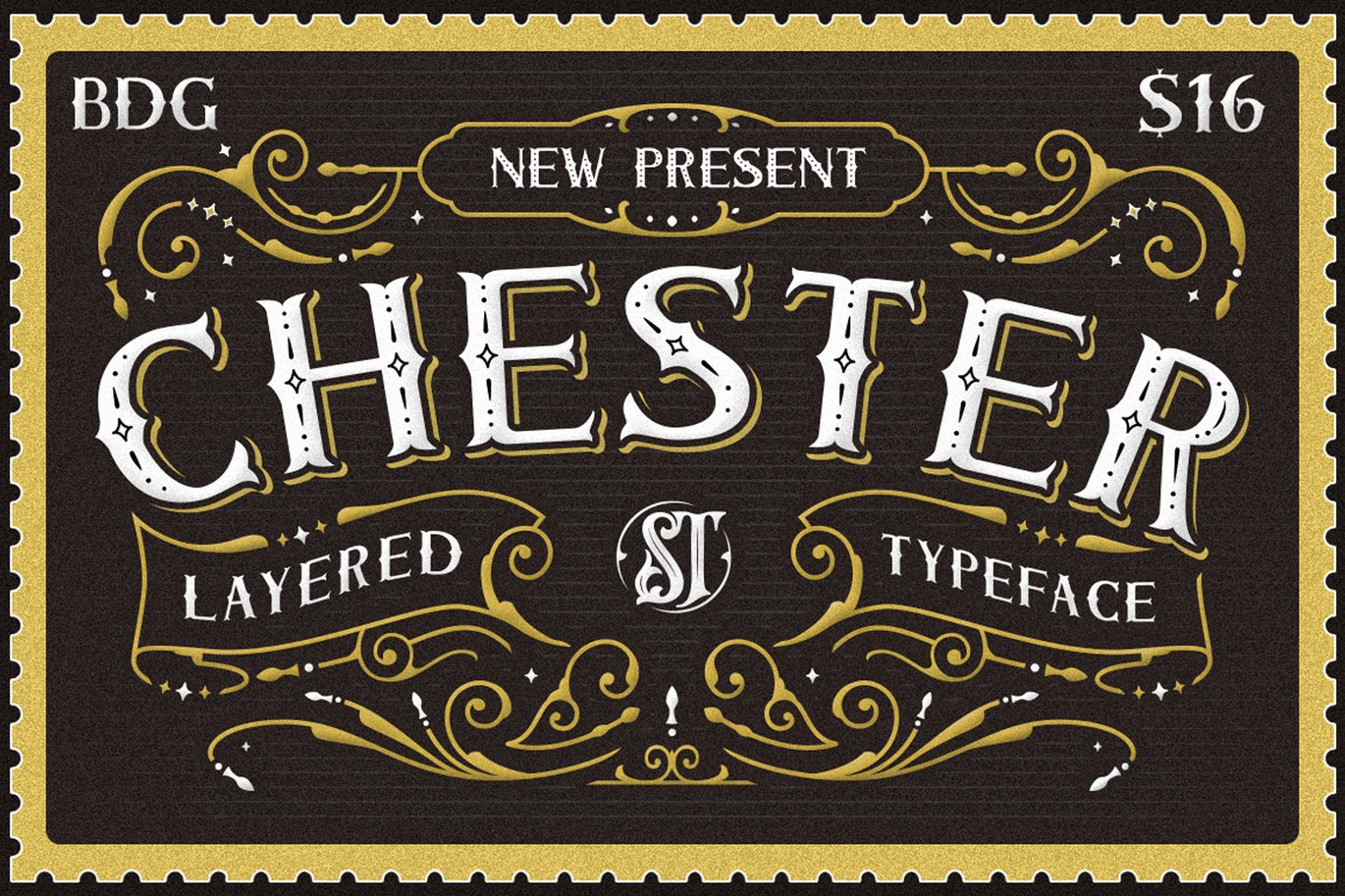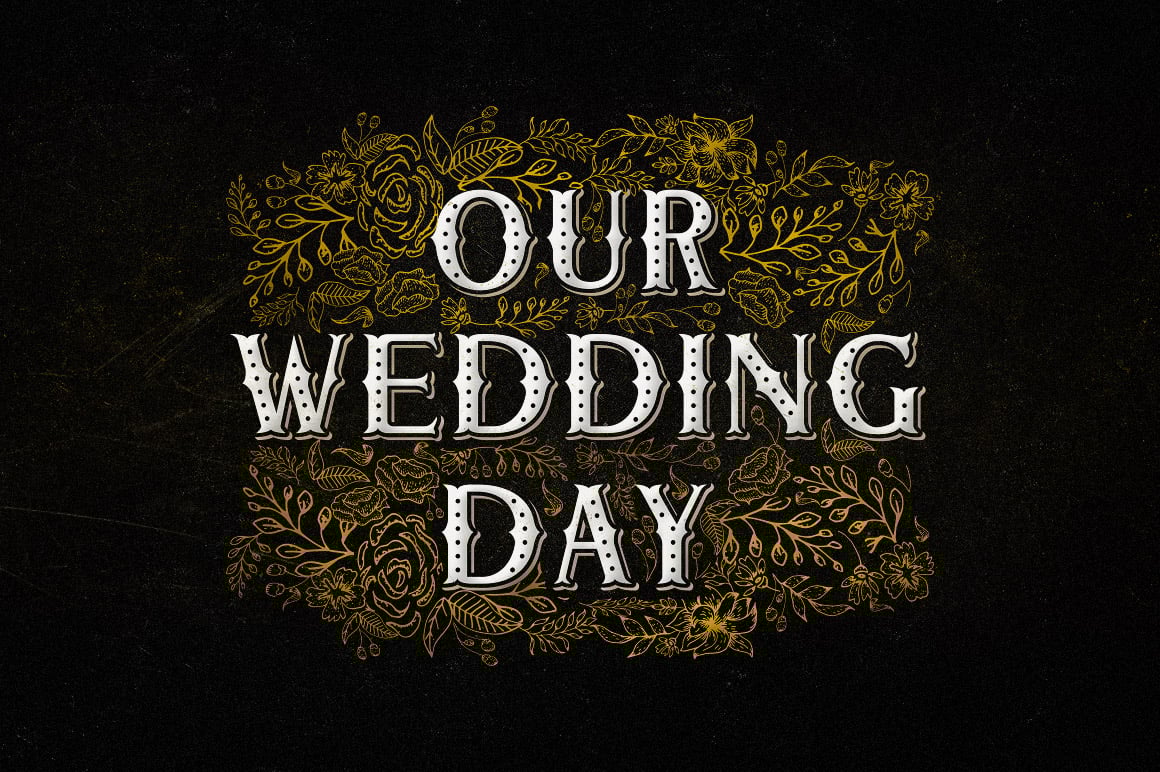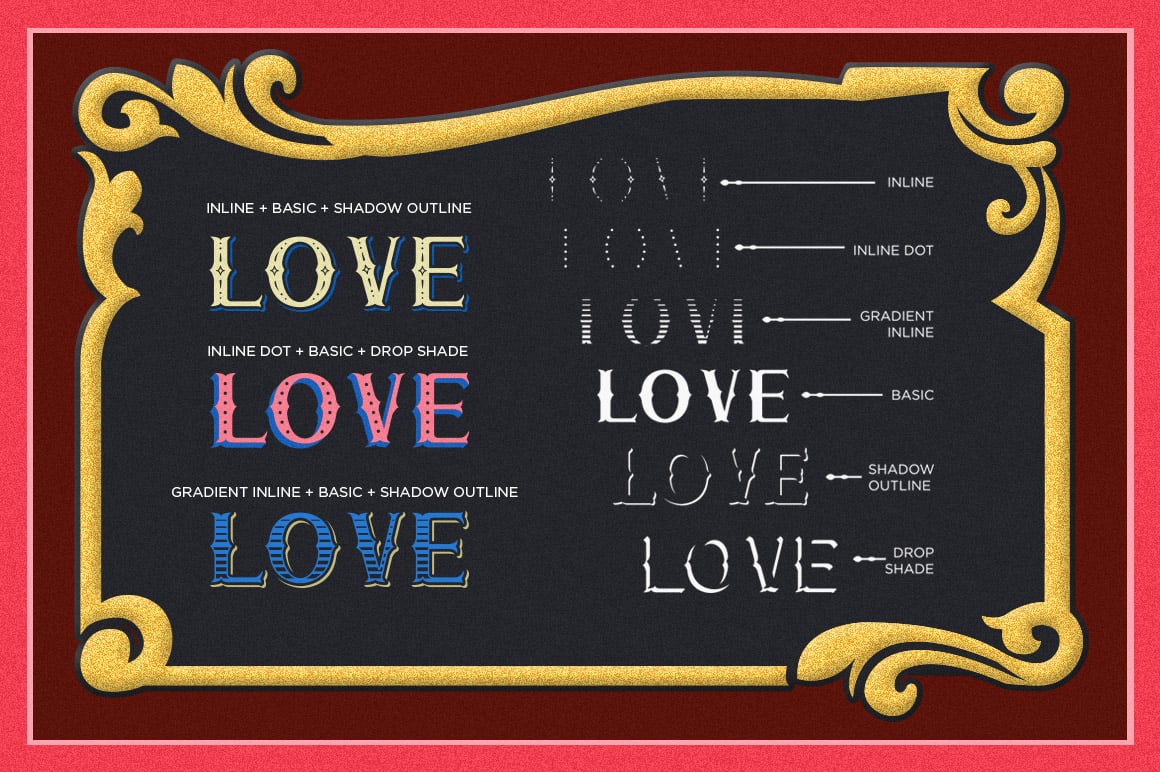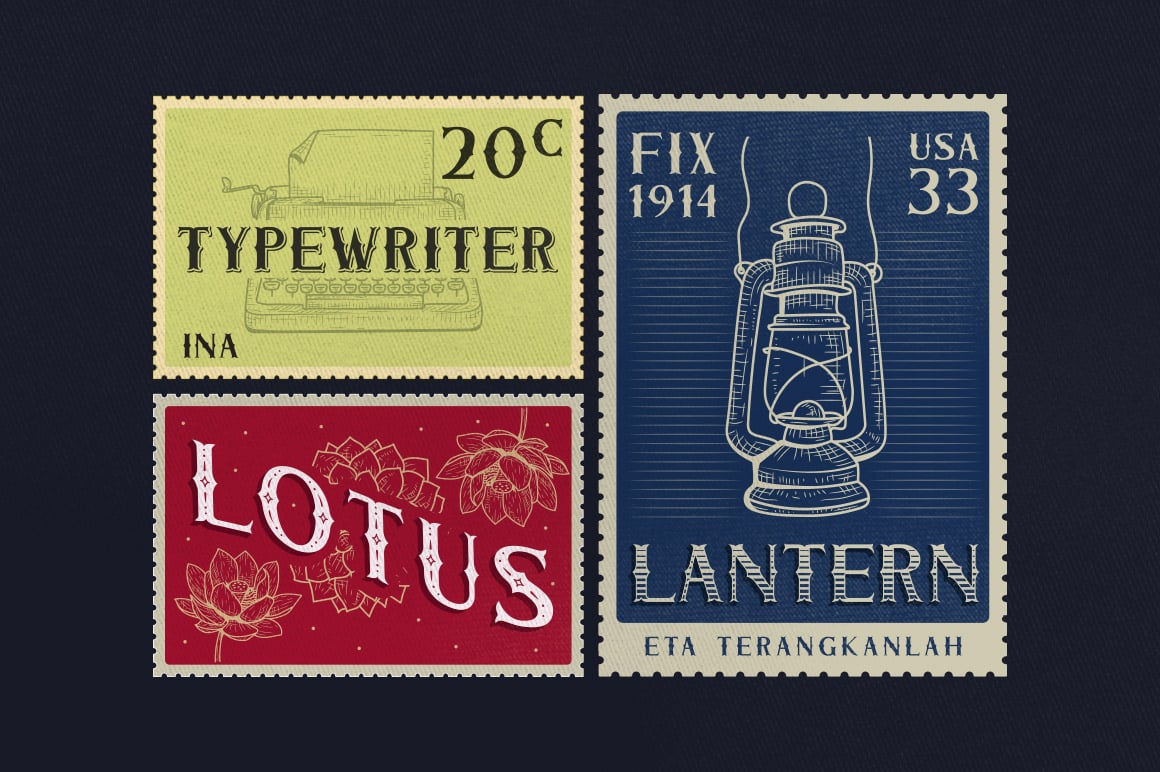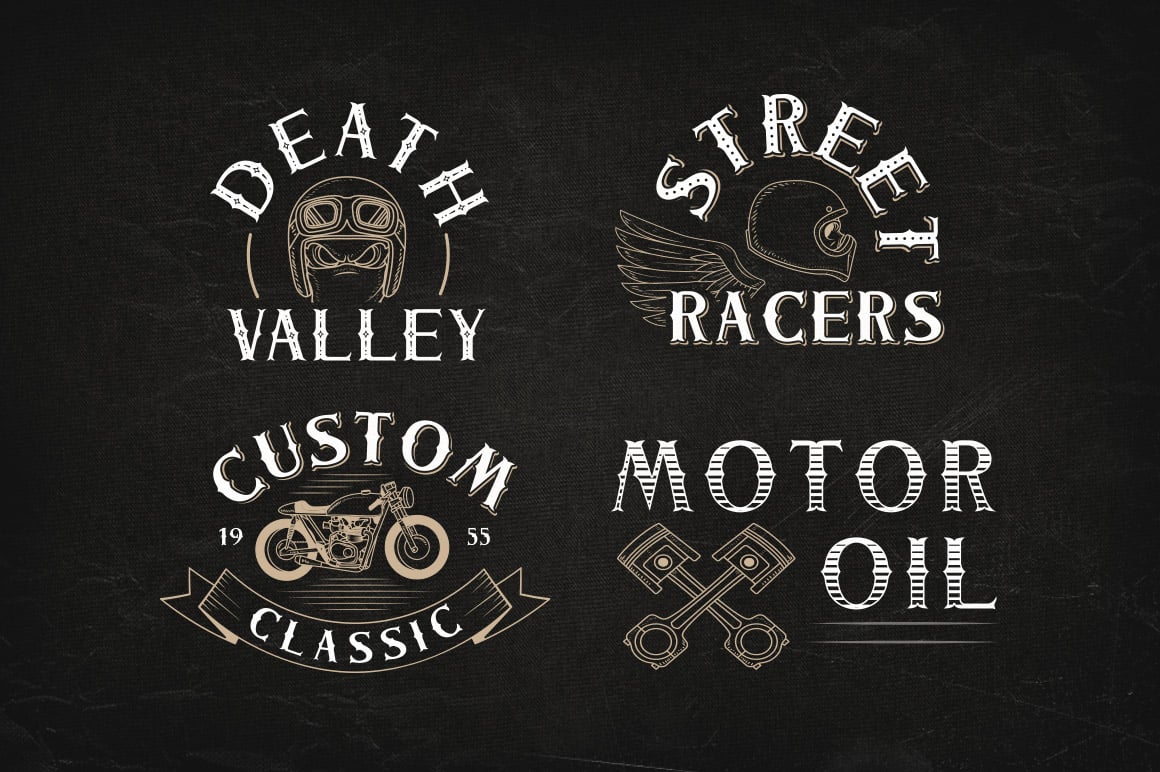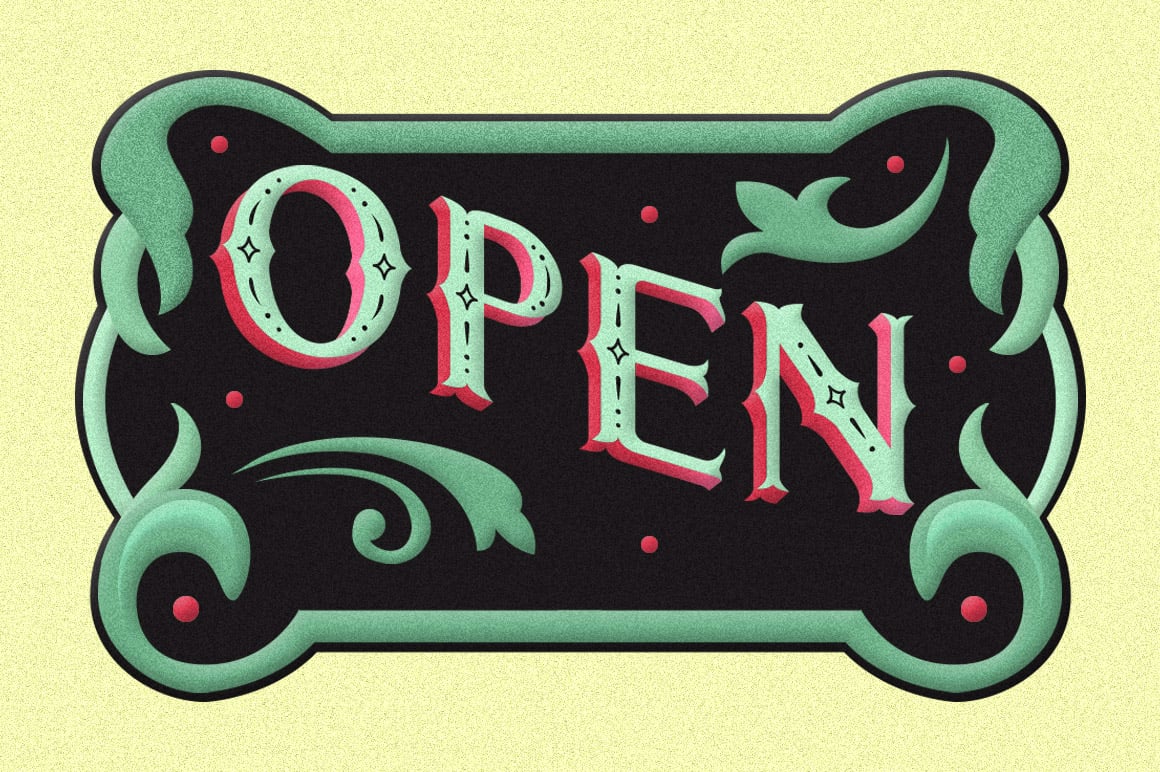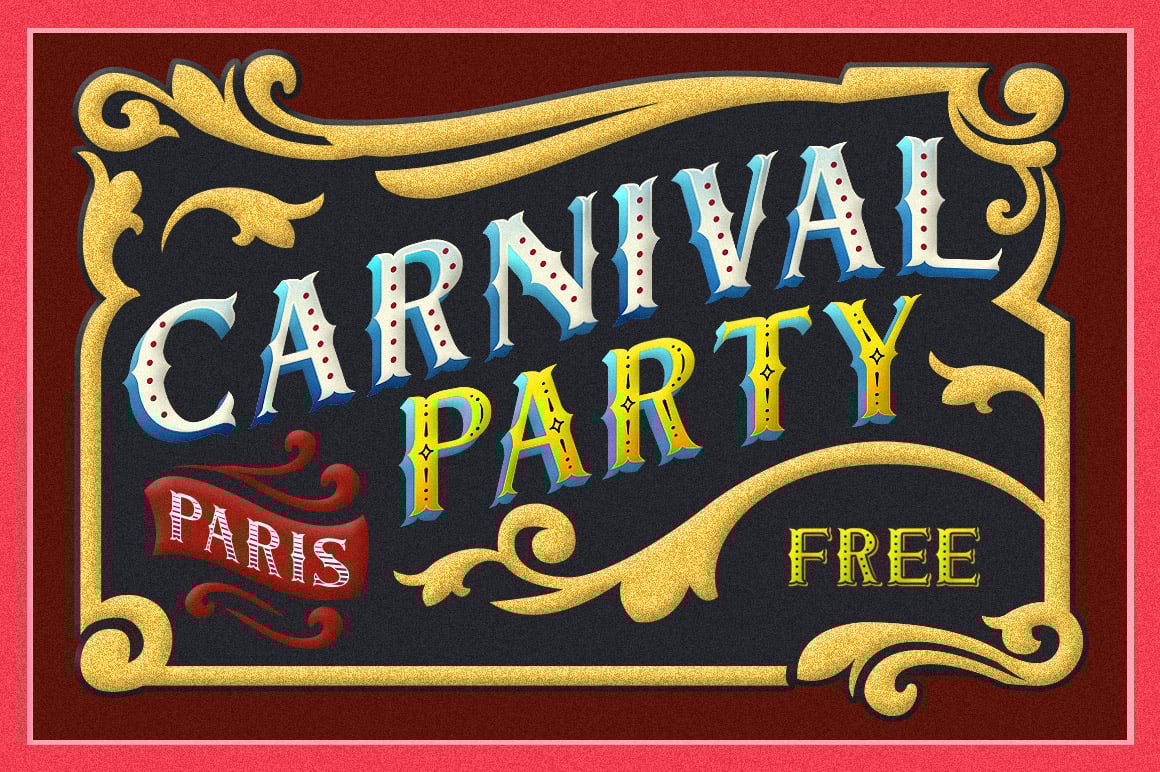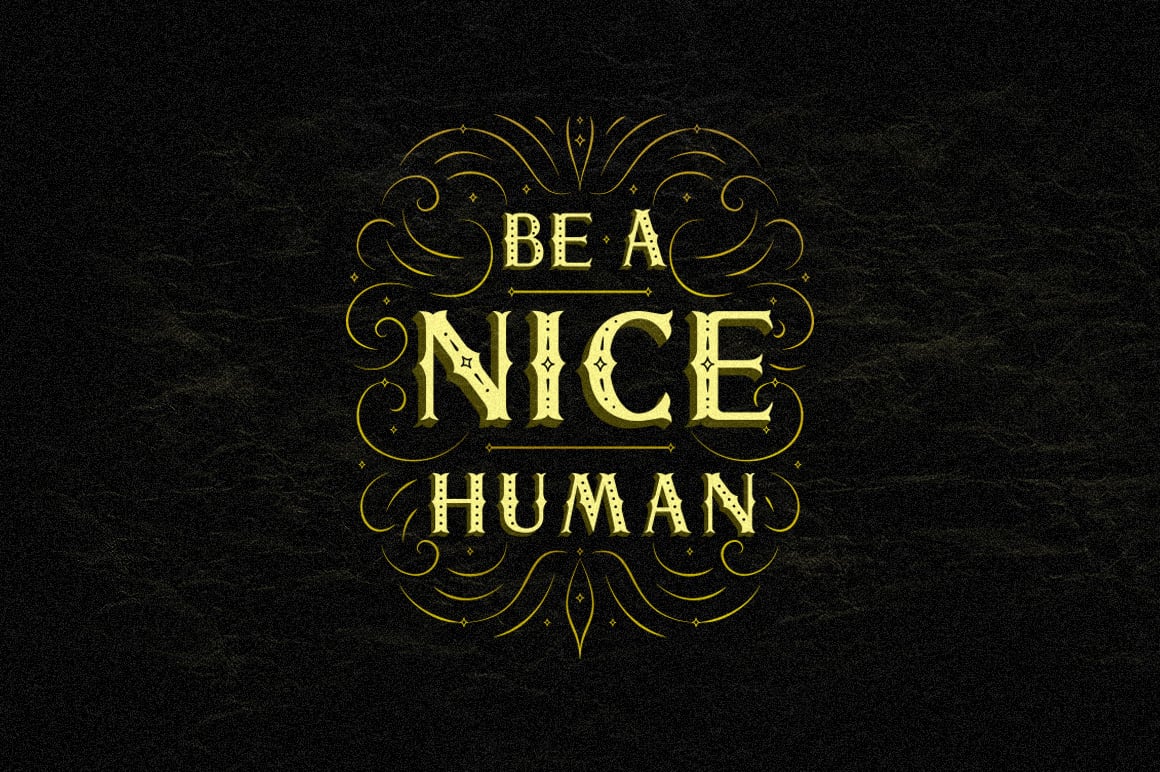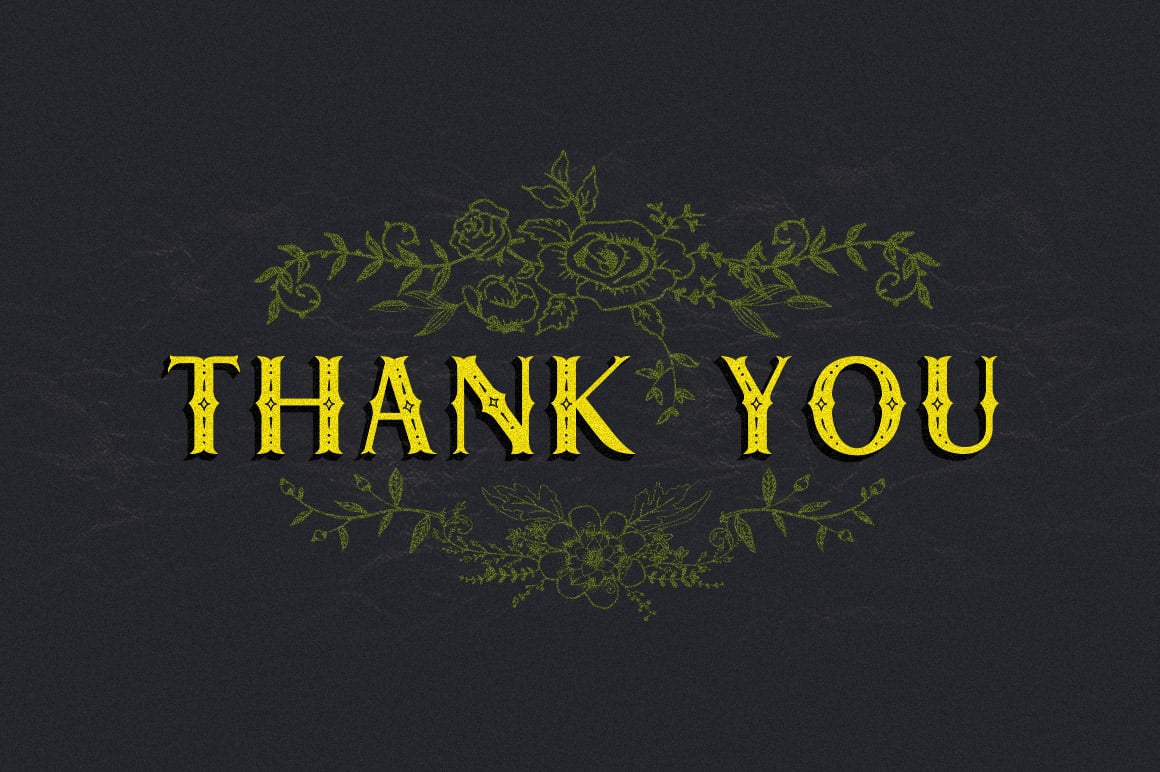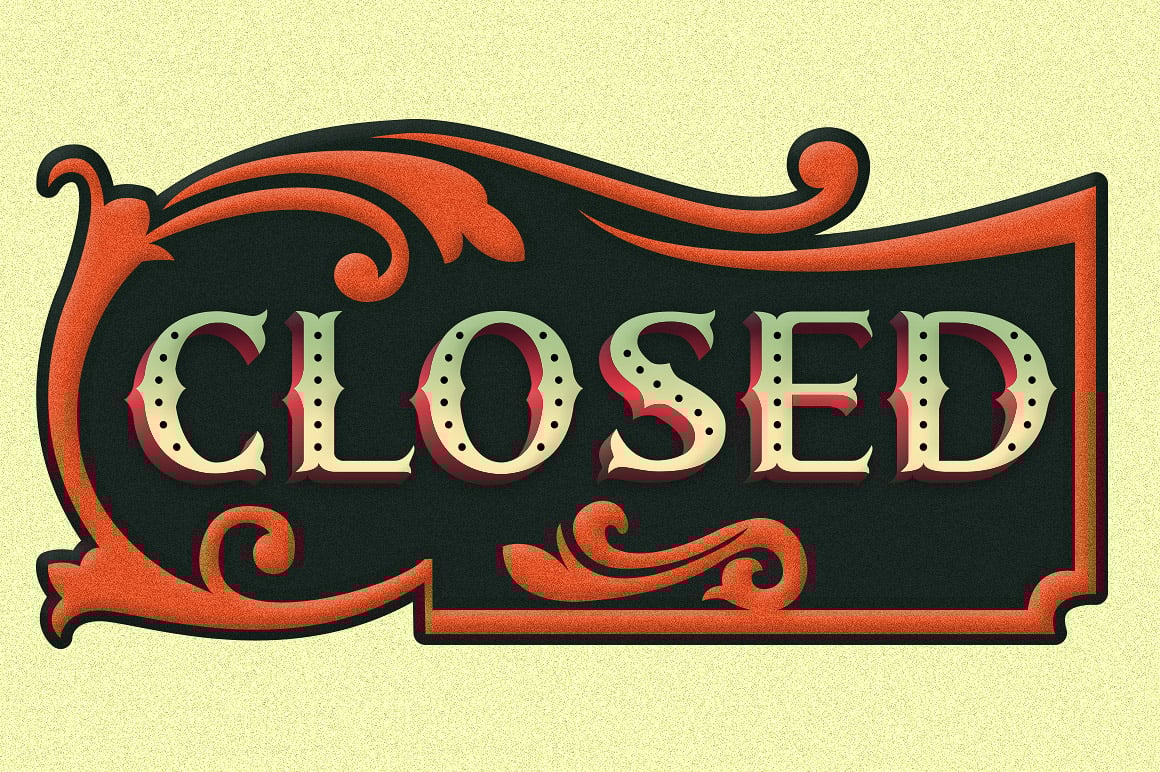
Chester – Layered Font Family
introducing new layered font family it’s call Chester , inspired from combine old postcard stamp and rustic sign painting with have unique decorative shapes.
This is collection of type with a layered type system, many possibilities combination and options with 6 font system that can be layered to create different effect ( Basic , Inline, Inner dot, Gradient Inline, Shadow outline & Drop Shade ).